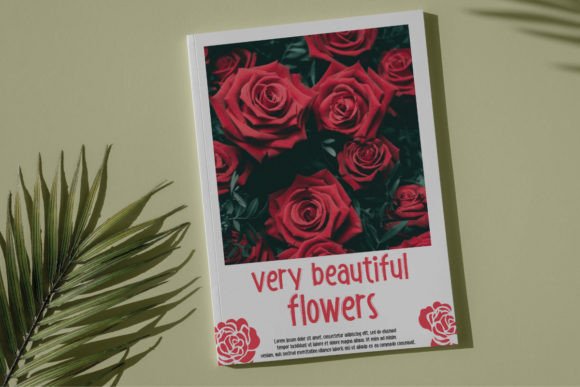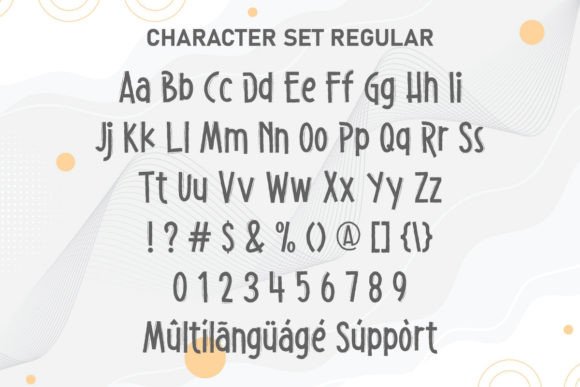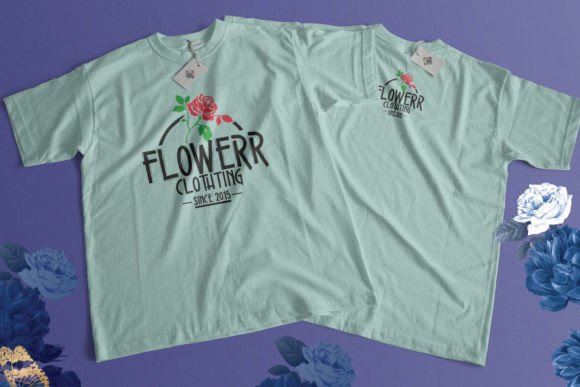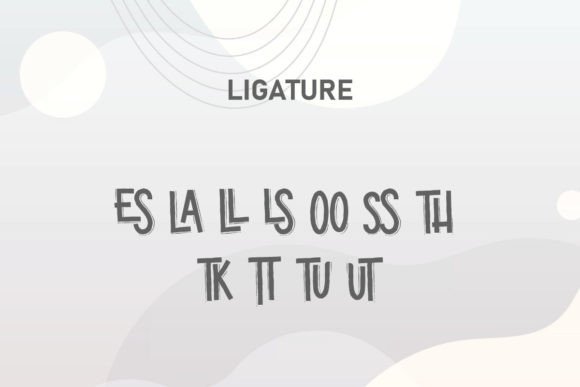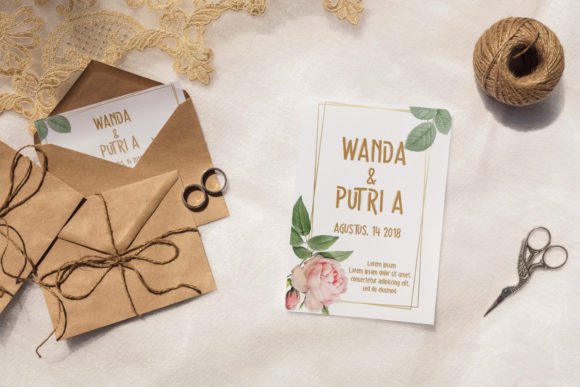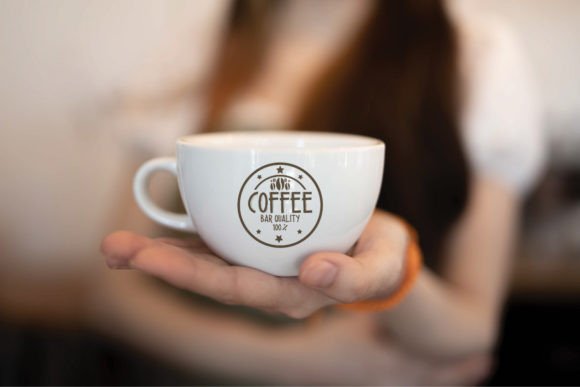
The Perfect Typographic Touch: Discovering Bradicals Font
As a designer, there’s nothing quite like the thrill of discovering a new font that instantly elevates your work. It’s the moment when all the pieces fall into place, and your design transforms from good to great. For me, that moment came when I stumbled upon the sophisticated and modern display font, Bradicals.
Bradicals Font is a game-changer for designers looking to add a touch of class and elegance to their work. With its sharp and clean lines, this versatile font is perfect for a wide range of design projects, from branding to editorial design. Whether you’re working on a high-end fashion campaign or a luxury lifestyle magazine, Bradicals Font is sure to impress.
Bradicals Font Key Features
- Font Family: Bradicals Font is a sans-serif typeface, designed for clarity and legibility.
- Unique Characteristics: Features a unique blend of modern and geometric elements, with a distinctive x-height and asymmetrical letterforms.
Design Review: Bradicals Font
Overall, I’m quite impressed with the Bradicals font, especially its unique blend of modern and classic elements. ✨ It’s got a lot of character and can add a touch of sophistication to any design project. ✨ The font’s clean lines and subtle flourishes make it perfect for headings and titles, while its versatility allows it to work well in body text too.
However, I do have a few concerns about the font’s limitations. ⚠️ For one, the font can feel a bit too ornate at times, which may make it difficult to read in smaller sizes. Additionally, the font’s style is quite distinctive, which may not be suitable for all types of projects. ⚠️ Some designers may find it too flashy or over-the-top.
Here are a few pros and cons to summarize:
- ✨ Unique blend of modern and classic elements
- ✨ Perfect for headings and titles
- ✨ Versatile and works well in body text
- ⚠️ May feel too ornate at times
- ⚠️ Style may be too distinctive for some projects
Overall, I think the Bradicals font is a solid choice for designers looking to add a touch of elegance and sophistication to their projects. However, it’s essential to consider the project’s tone and style before deciding whether this font is the right fit.
Use Bradicals Font for creative and artistic projects, such as posters, flyers, and infographics.
Combine Bradicals Font with bold colors and graphics to create a striking visual effect.
Experiment with different font sizes and styles to add depth and visual interest to your design.
Are there any font variants or weights available for Bradicals Font?
Yes, the Bradicals Font family includes multiple weights and styles to provide a wide range of design options. These include Light, Regular, Medium, Bold, and Extra Bold weights, as well as Italic and Oblique styles. You can choose the weight and style that best suits your design needs.